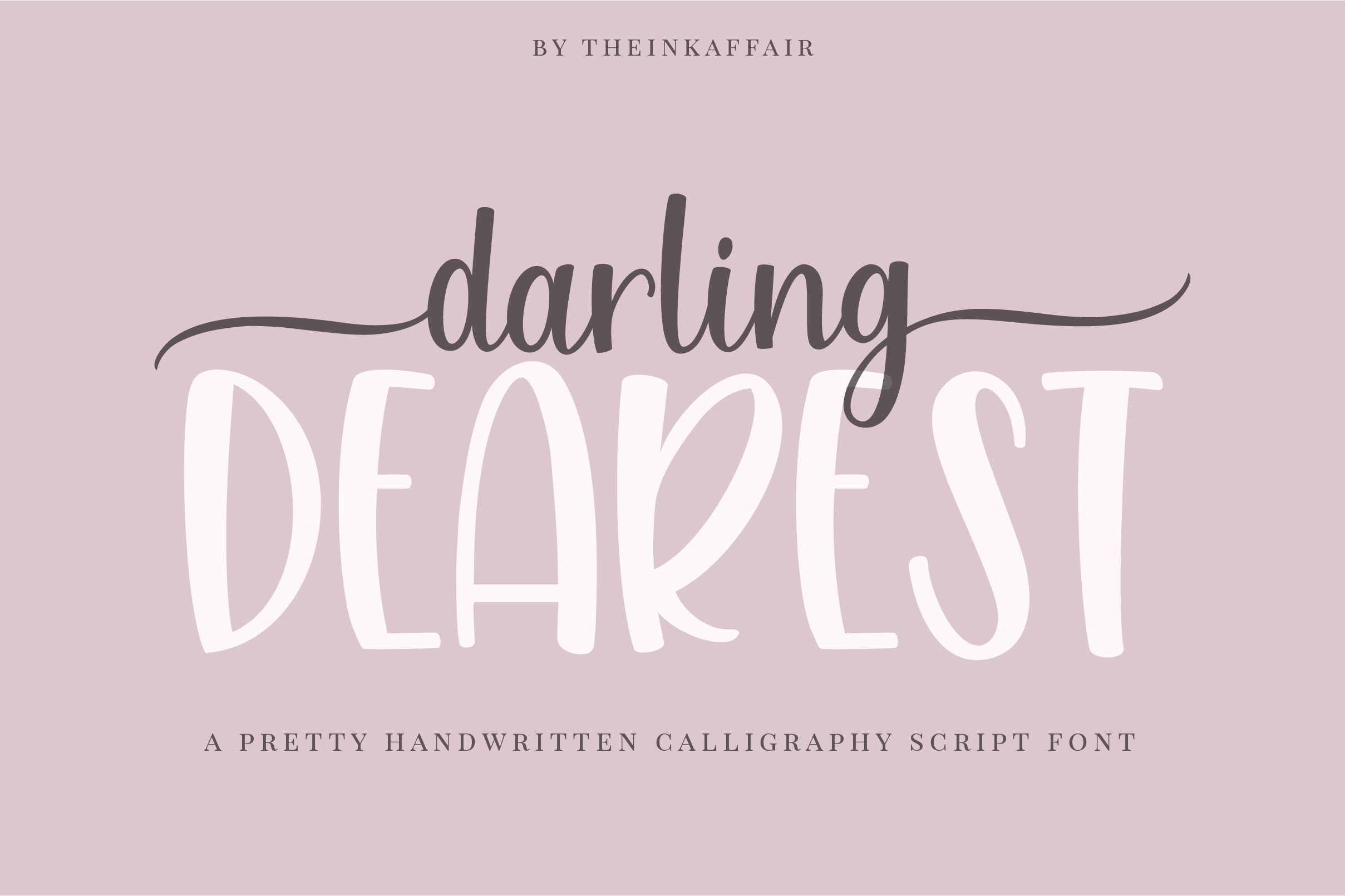
Darling Dearest Script Font
Introducing, Darling Dearest, a sweet calligraphy script font, perfect for all things design!
- Darling dearest in both OTF and TTF format. File includes uppercase, lowercase, numbers, punctuations, as well as ligatures. Also includes a set of beginning and ending swashes each, coded in as alternates.